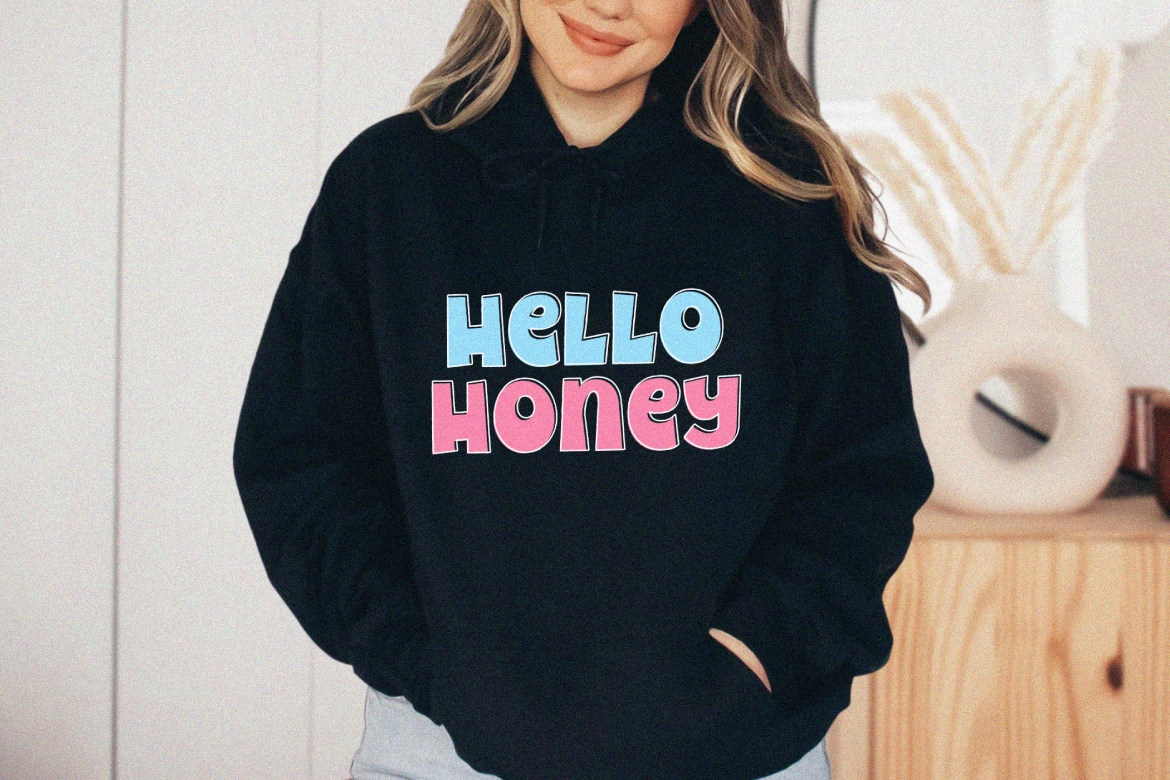
Lunar Pop – Display Font
Bold and fun fonts are here to accompany your design projects. Consists of 2 styles, namely Regular & Outline which further adds to the creative value of this font. Perfect for poster design, branding, crafting, merchandise and more.
- Features: Uppercase, Lowercase, Numeral, Punctuation & Multilingual.
- Multilingual contained: Afrikaans, Albanian, Asu, Basque, Bemba, Bena, Breton, Catalan, Chiga, Cornish, Danish, Dutch, English, Estonian, Filipino, Finnish, French, Friulian, Galician, German, Gusii, Indonesian, Irish, Italian, Kabuverdianu, Kalenjin, Kinyarwanda, Luo, Luxembourgish, Luyia, Machame, Makhuwa-Meetto, Makonde, Malagasy, Manx, Morisyen, North Ndebele, Norwegian Bokmål, Norwegian Nynorsk, Nyankole, Oromo, Portuguese, Quechua, Romansh, Rombo, Rundi, Rwa, Samburu, Sango, Sangu, Scottish Gaelic, Sena, Shambala, Shona, Soga, Somali, Spanish, Swahili, Swedish, Swiss German, Taita, Teso, Uzbek (Latin), Volapük, Vunjo, Zulu.